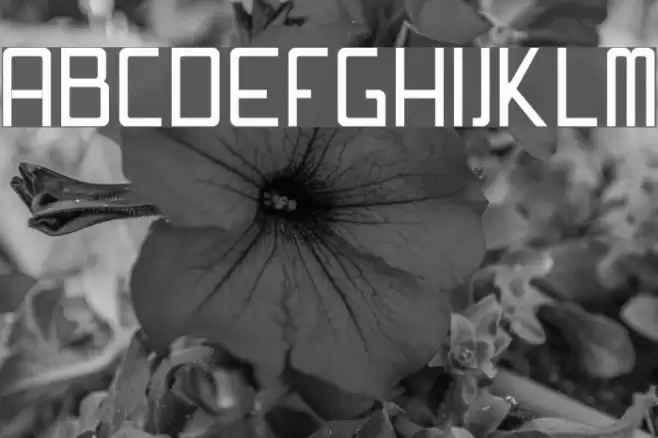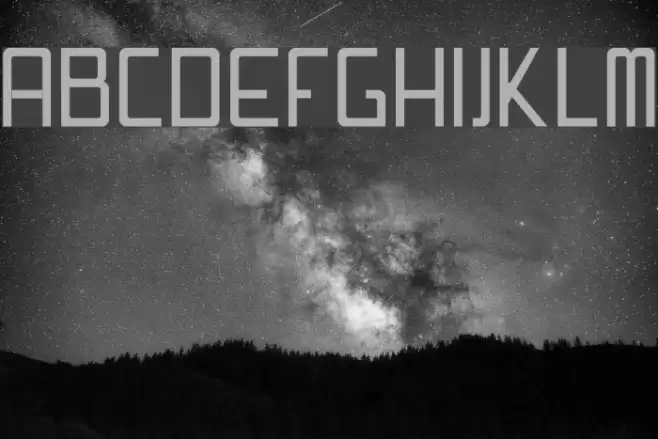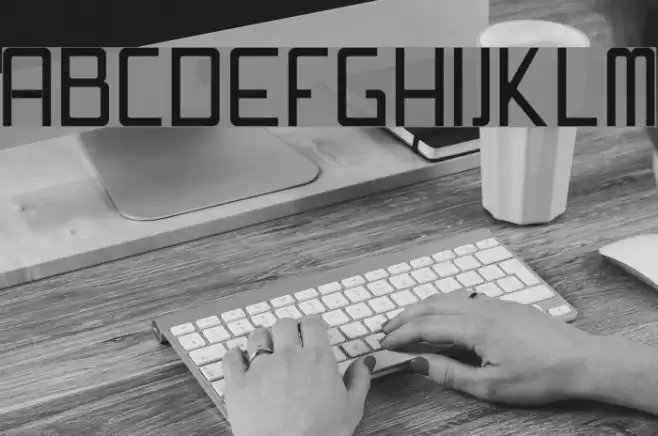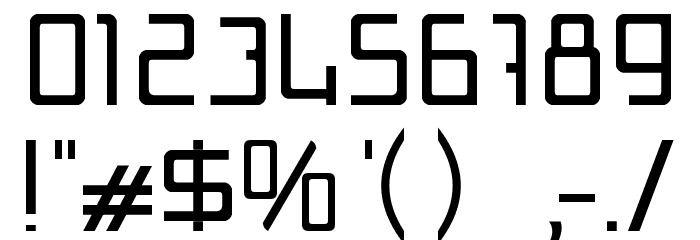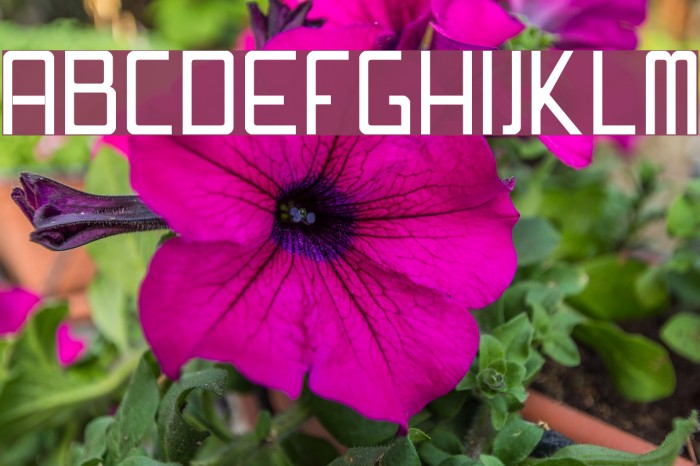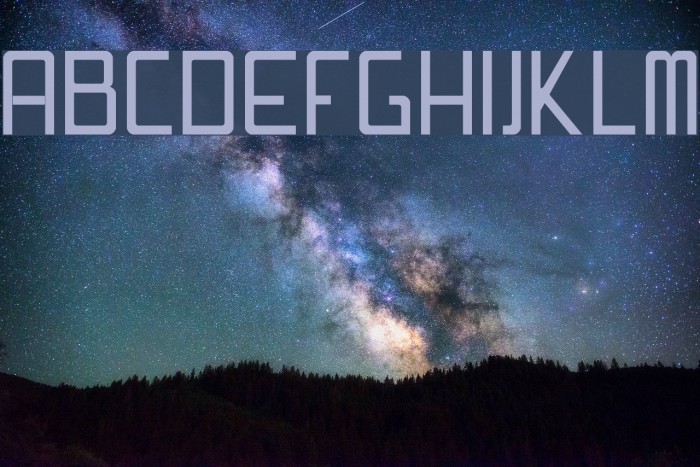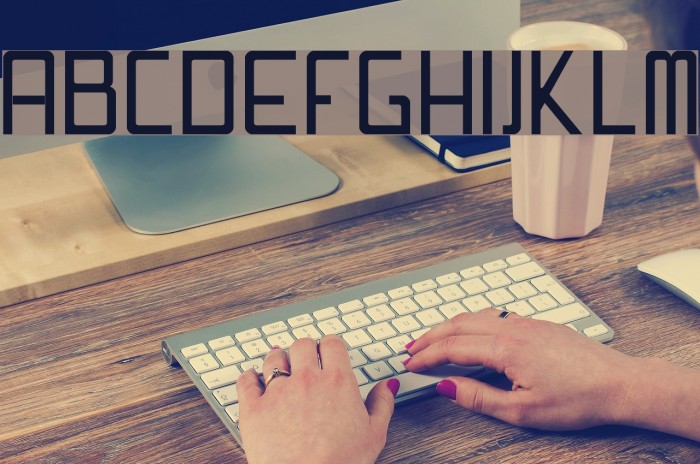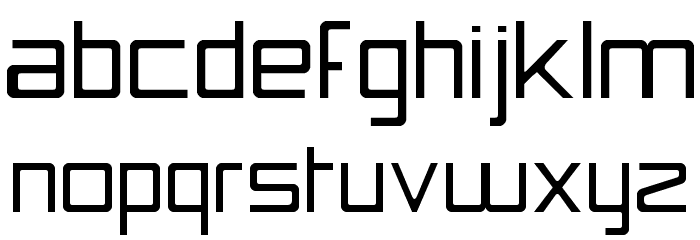
Swissmade Font
Swissmade Description
This font showcases a modern, geometric style with a clean and structured appearance. The characters are composed of straight lines and precise angles, giving it a futuristic and technical feel. Uppercase and lowercase letters maintain a consistent height, contributing to a uniform look. The numerals and special characters follow the same design principles, ensuring a cohesive visual identity. The font's simplicity and clarity make it highly legible, even at smaller sizes. Its design is versatile, suitable for various digital and print applications where a contemporary and sleek aesthetic is desired.
A modern, geometric font with a clean and structured appearance from Uncategorized fonts.
- Proposed Projects: Ideal for technology branding, digital interfaces, modern advertising, and editorial design.
- Use Case: Headlines, Logos, Digital interfaces